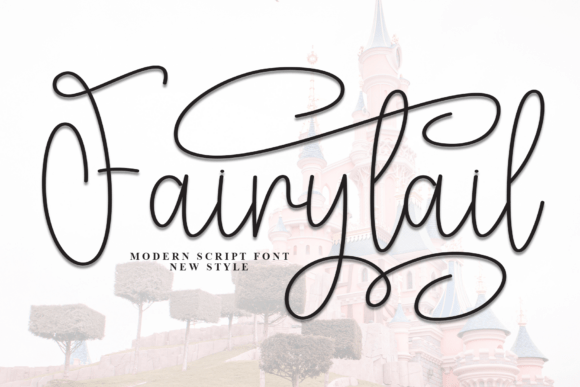
As designers, we’ve all been there – staring at a blank canvas, trying to bring our ideas to life. It’s in these moments of creative frustration that we often find ourselves daydreaming of the perfect font to elevate our design. And what’s more enchanting than a beautifully crafted script font that transports us to a world of romance and luxury?
Enter the Fairytail Font, a stunning script typeface with swashes that adds an extra layer of sophistication to any design. Whether you’re crafting wedding invitations, branding projects, or social media graphics, this elegant font is sure to leave a lasting impression. For designers, the Fairytail Font is a valuable asset that can help bring a touch of whimsy and elegance to their work.
Fairytail Font Key Features
• Unique Characteristics: The Fairytail Font features a whimsical, handwritten style with intricate flourishes and subtle texture, adding a touch of elegance and sophistication to any design.
Fairytail Font Review
At first glance, Fairytail Font ✨ looks like a whimsical, magical font that’s perfect for designers who want to add a touch of fantasy to their projects. The font’s delicate curves and flowing lines ✨ make it an excellent choice for titles, headings, and other display text.
One of the things that I like about Fairytail Font is its high level of customizability ✨. It comes with a range of weights, from light to bold, which allows designers to choose the perfect style for their project. Additionally, the font’s OpenType features make it easy to add swashes, ligatures, and other decorative elements to create a unique look.
However, there are a few limitations to consider ⚠️. For one, the font may be too ornate for some projects, and the delicate lines may get lost when scaled down. Additionally, the font’s high level of customizability can be overwhelming for some designers, and may require a significant amount of time to master.
Pros:
• Whimsical, magical design ✨
• High level of customizability ✨
• Range of weights and OpenType features
Cons:
• May be too ornate for some projects ⚠️
• Delicate lines may get lost when scaled down ⚠️
• Can be overwhelming to master ⚠️
Overall, I think Fairytail Font is a great choice for designers who want to add a touch of magic to their projects. While it may have some limitations, its high level of customizability and unique design make it a great addition to any font collection.
Fairytail Font: A Practical Application Guide
Fairytail Font is perfect for:
• Children’s book covers and illustrations
• Wedding invitations and stationery
• Magazine and newsletter headers
• Branding and logo designs
Alternatives to Fairytail Font
Fairytail Font is a beautiful, handwritten font, but it may not be suitable for every design project. Here are a few alternatives that designers can consider:
Great Vibes is a modern, handwritten font that is perfect for creating a relaxed and casual atmosphere. It has a similar feel to Fairytail Font but with a more modern twist. Great Vibes is ideal for use in branding, advertising, and packaging design. When to use: casual, friendly, and approachable designs.